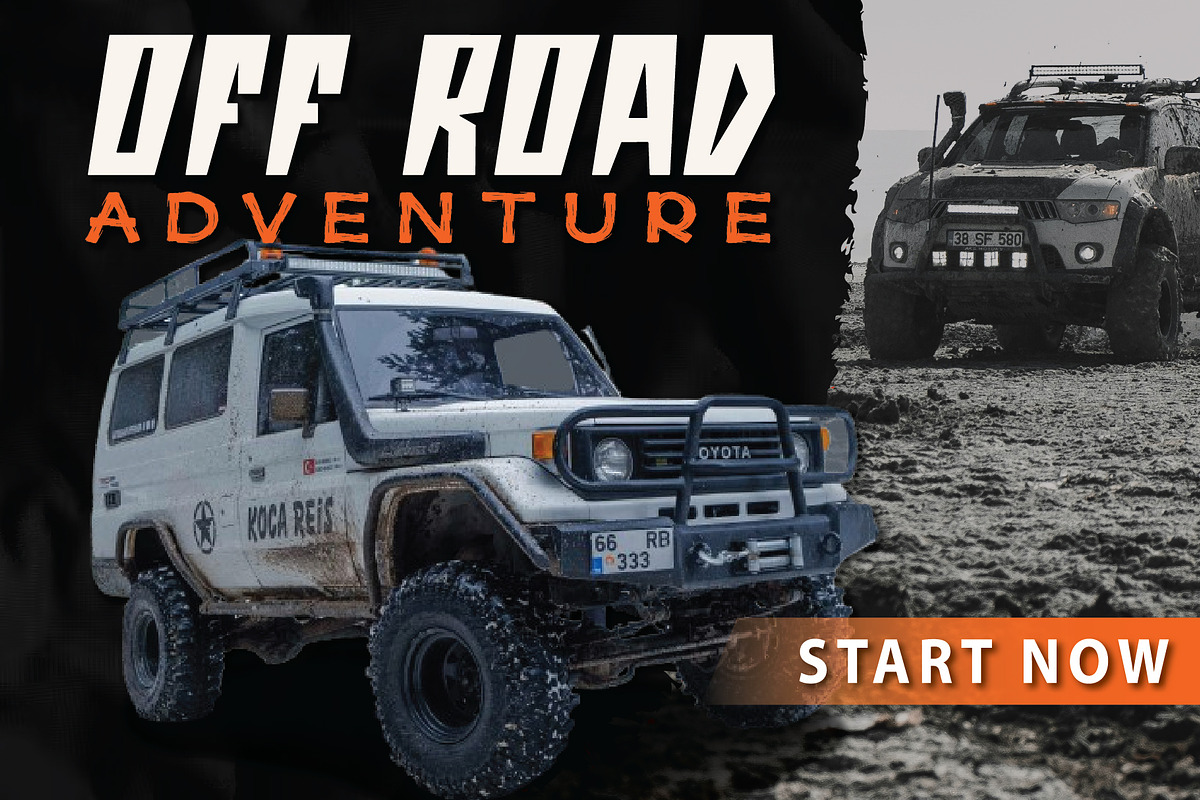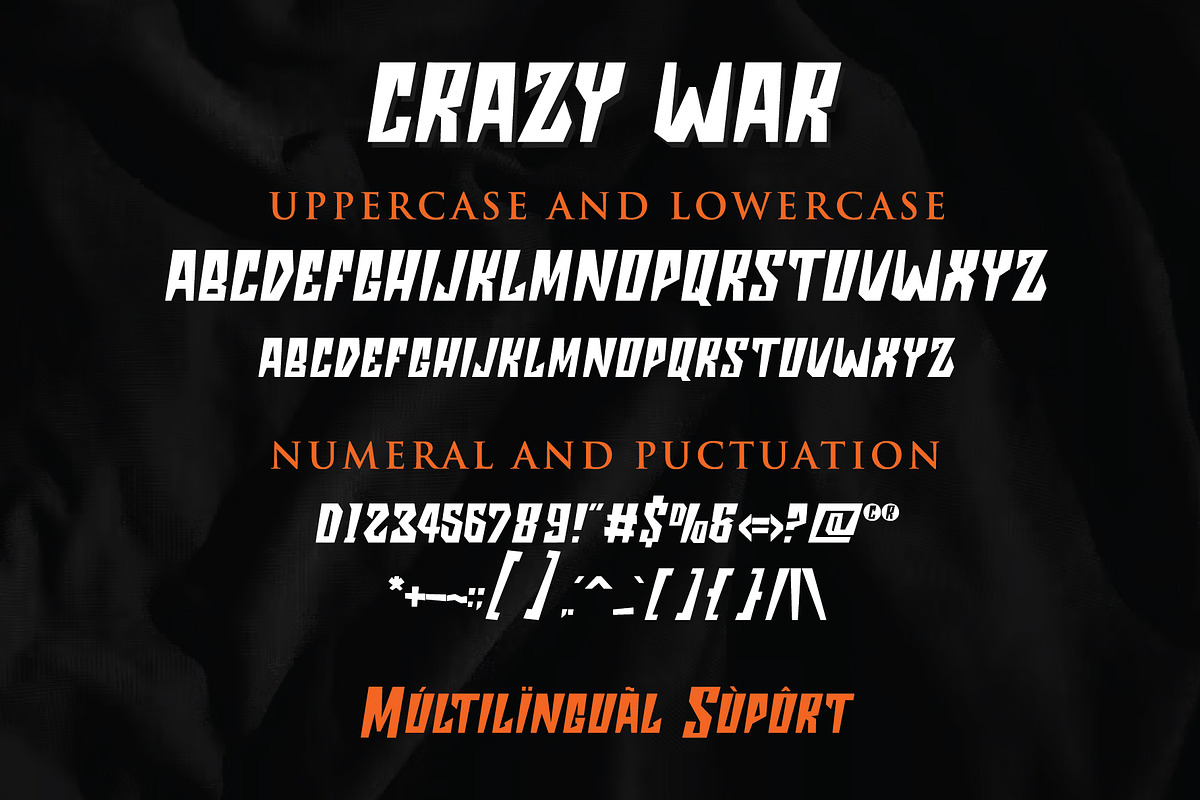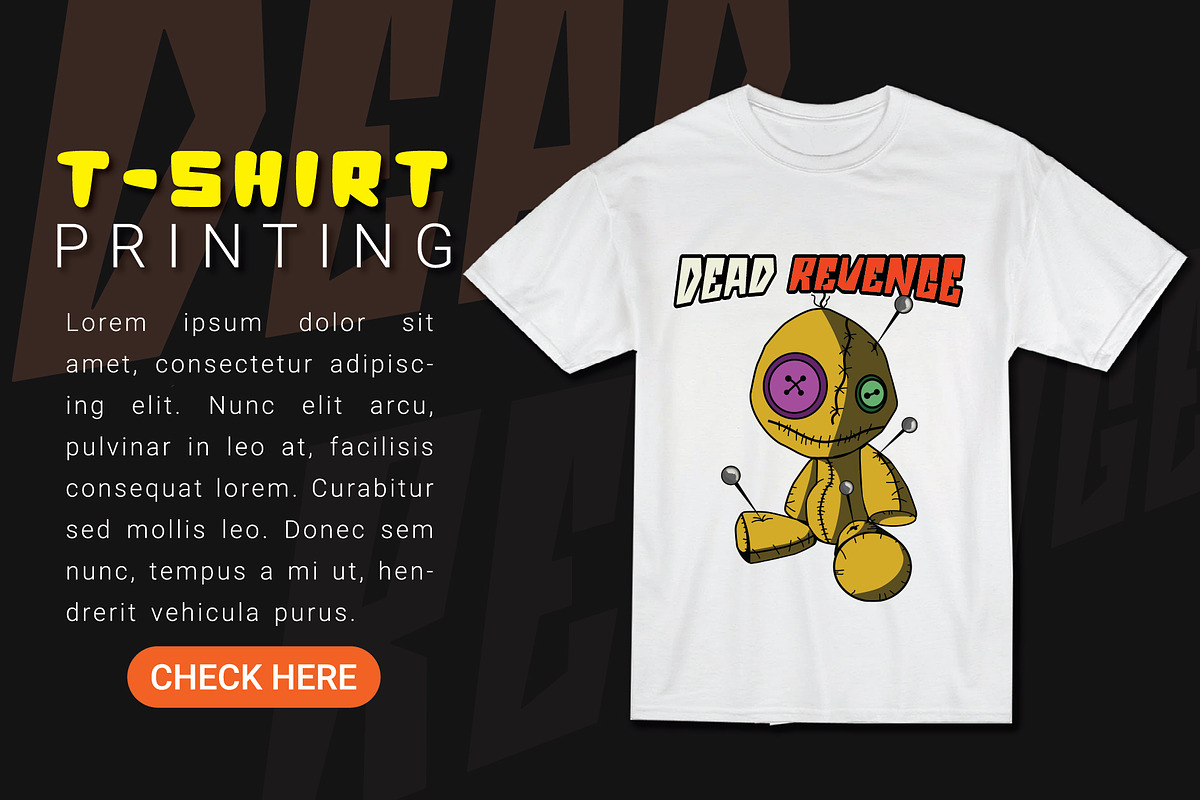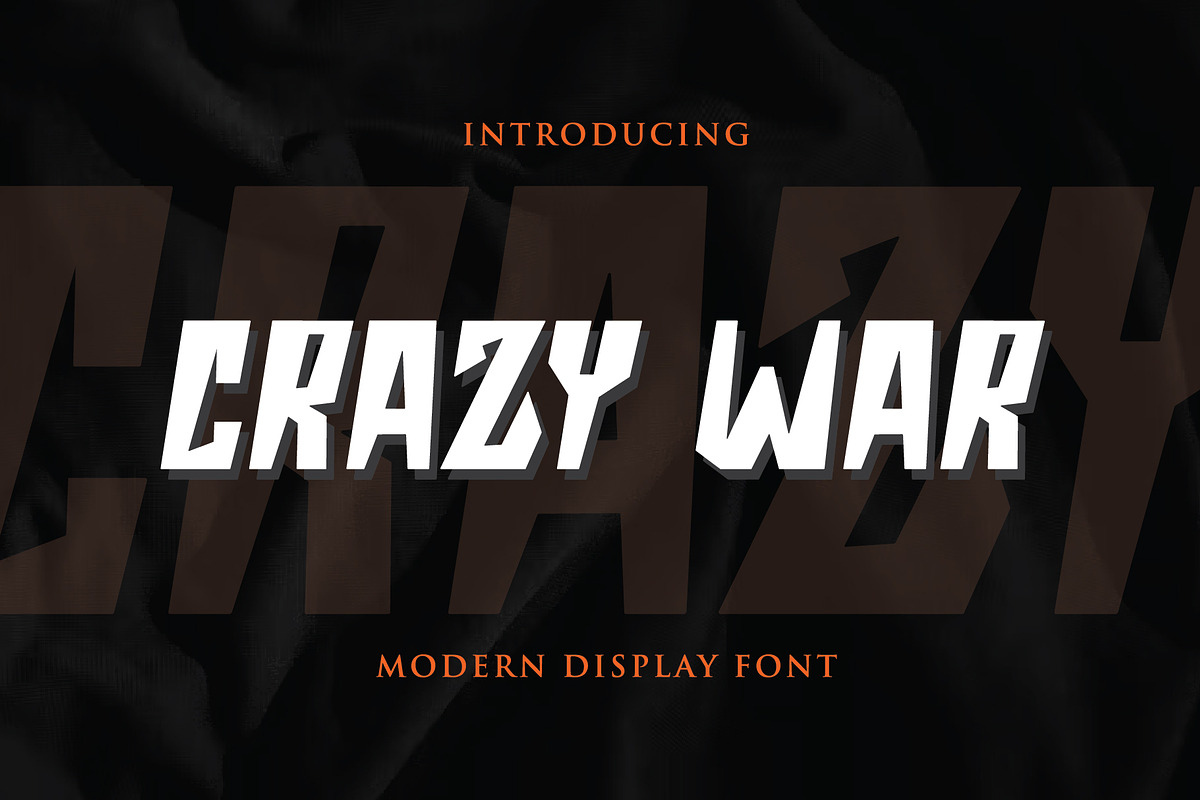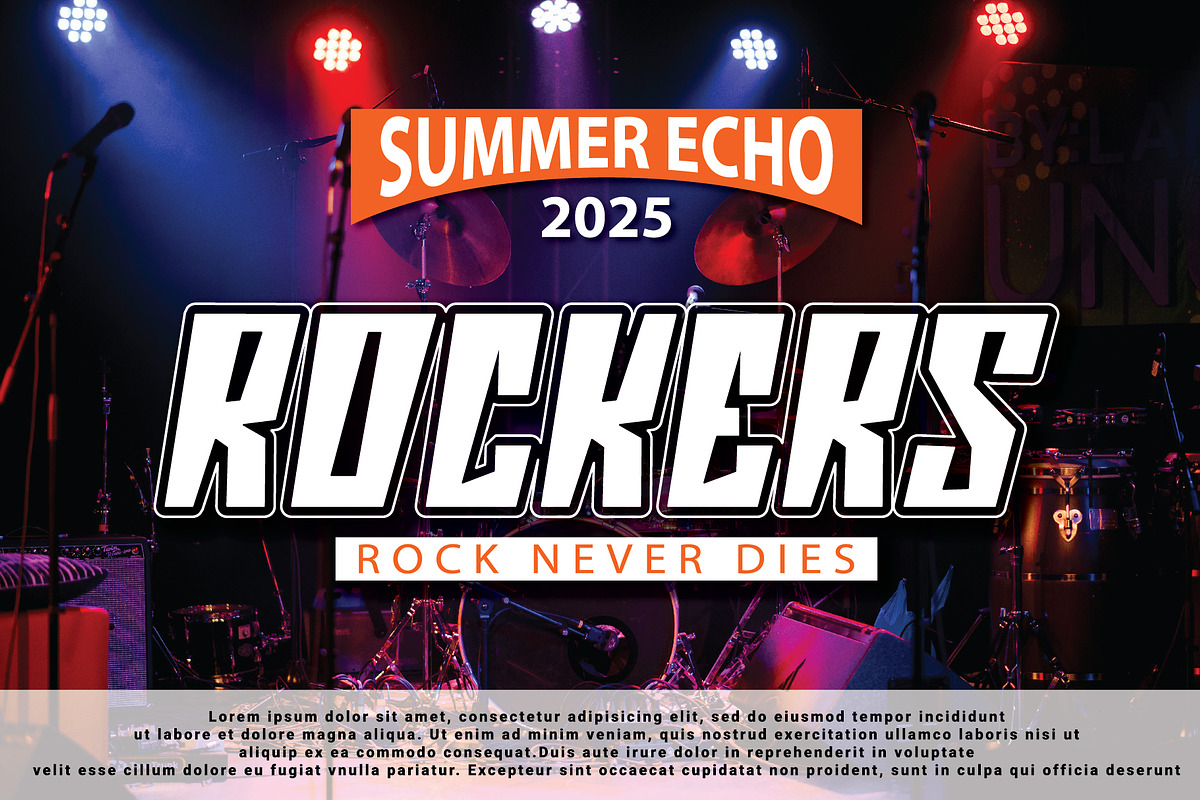
Crazy War
Unleash your creativity with Crazy War, a striking fusion of modern adaptability and robust masculinity, delicately tinged with a whisper of nostalgia. This standout font effortlessly marries the edgy with the versatile, ensuring a charismatic presence in any design project. Immerse your audience in an artistic voyage where old-world charm subtly intermingles with a robust, cutting-edge aura. Stand apart with Crazy War, your key to resounding impact and enduring appeal.